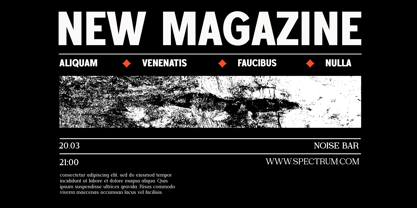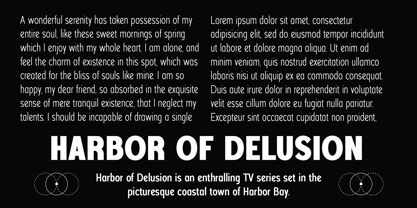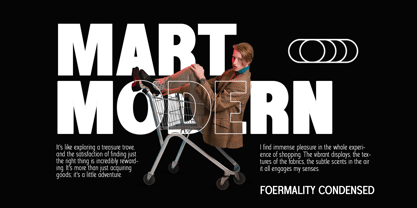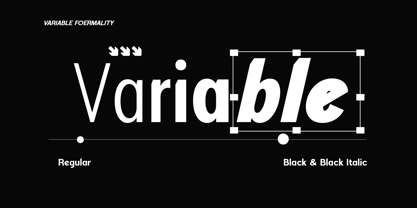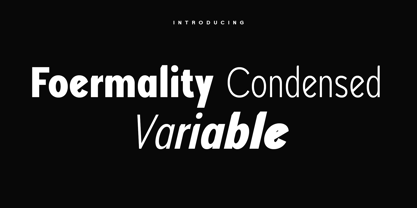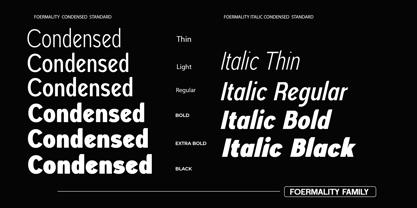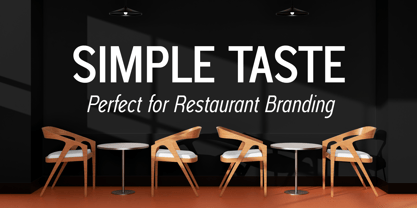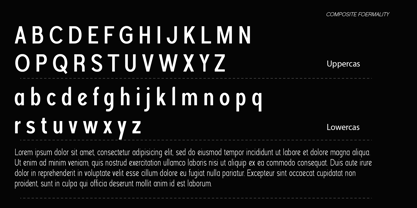
Foermality Condensed Variable
by Laroyba Type
The Foermality Condensed Variable Font Family was designed by Habib Abdur Rofi and published by Laroyba Type. Foermality Condensed Variable contains 2 styles and family package options. More about this family
Foermality Condensed Variable expands the flexibility of the Foermality superfamily by giving designers full control over weight and expression within a single font file. With a smooth and precise variable axis, this font allows seamless transitions from light to bold, enabling dynamic typography that adapts effortlessly to different design needs. Whether you’re fine-tuning hierarchy in editorial layouts or creating responsive designs for digital platforms, Foermality Condensed Variable provides both efficiency and creative freedom. Maintaining the same elegant and space-saving structure as its static counterpart, the variable version enhances workflow by reducing file management while increasing design possibilities. It is especially powerful for modern design environments that demand adaptability, performance, and precision. Foermality Condensed Variable is where functionality meets refined aesthetics—perfect for designers who want control without compromise. Key Features: Full variable weight axis Smooth interpolation across styles Space-efficient condensed design Optimized for modern workflows and responsive design Consistent and elegant typographic voice